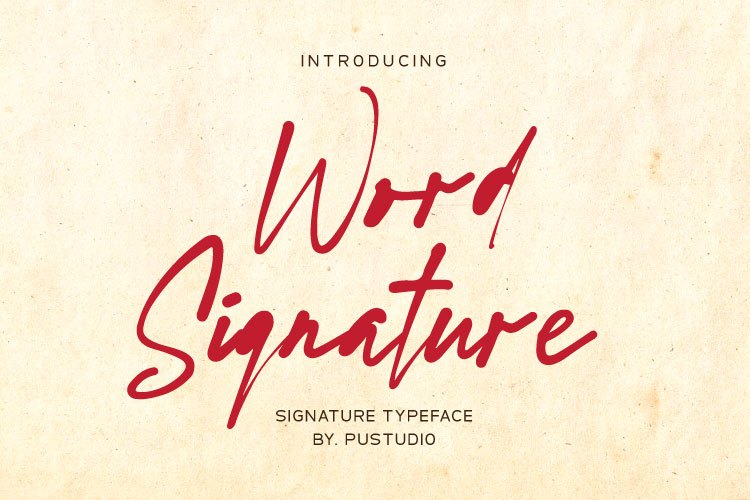
Word Signature Font
About Word Signature Font
Word Signature is a modern Signature font crafted in an elegant and professional style. perfect font for creating signature logos and watermarks for photography studios or personal photography logos, best for initial logo or brand signatures, business, company and others